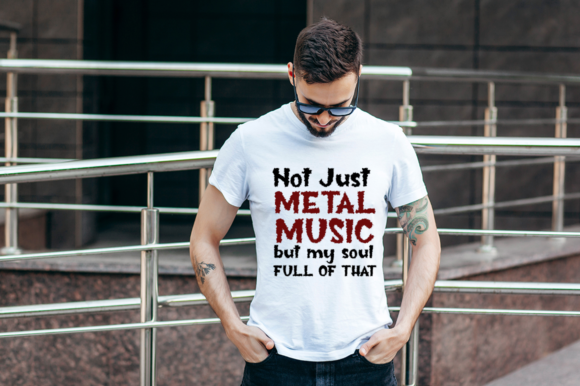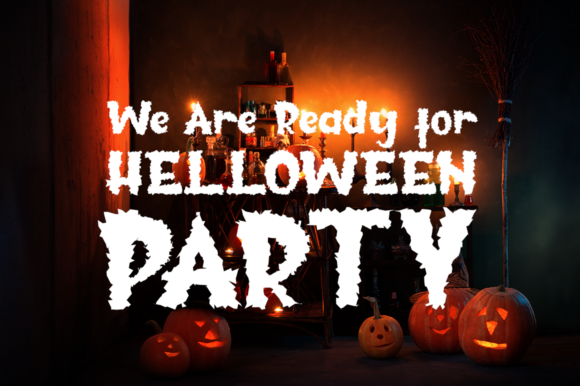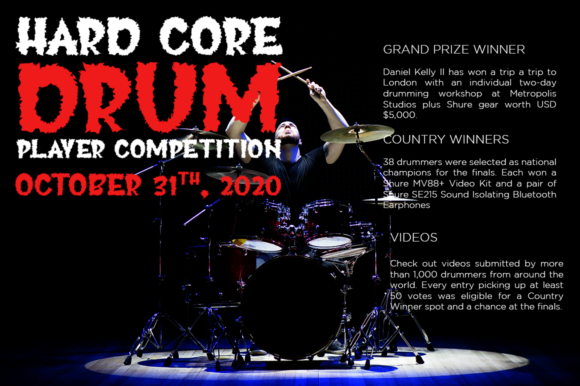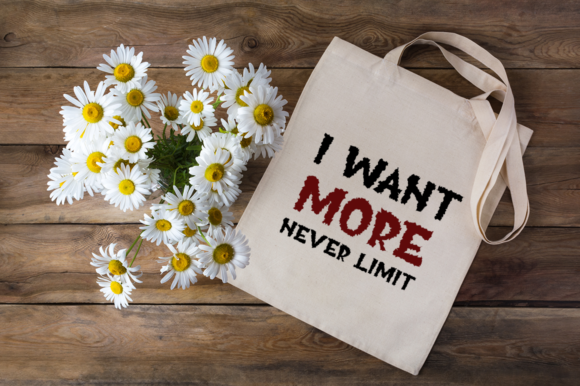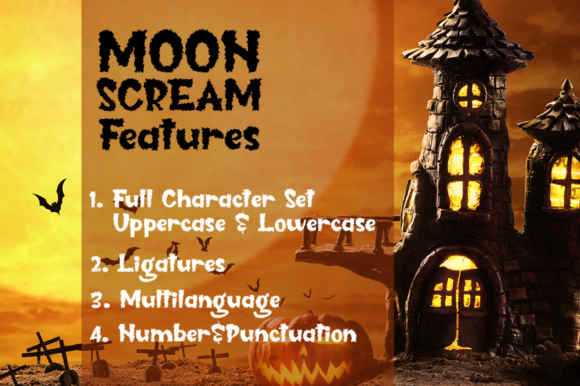
Introduction to Moon Scream Font
Moon Scream is a chunky lettered and incredibly unique display font.
Add this font to your creative ideas and notice how it will make them stand out .
Key Features of Moon Scream Font
Why Choose Moon Scream Font?
Moon Scream Font offers exceptional quality and versatility, making it a valuable addition to your design toolkit. Whether you’re creating for personal projects or commercial use, Moon Scream Font delivers professional results.